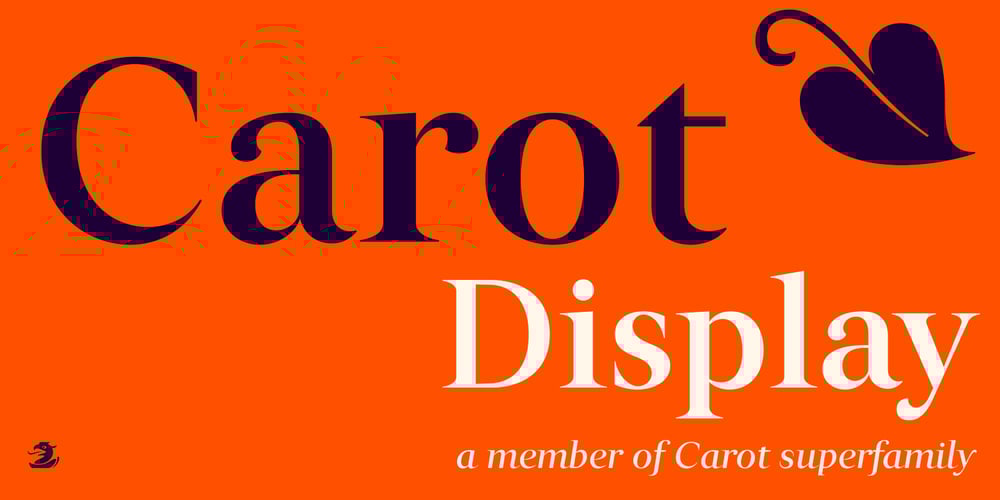
Carot Display Font Family was designed by František Štorm and published by Storm Type Foundry. Carot Display contains 16 styles and family package options. Carot Display is made for book covers and posters, but will also shine in advertising and visual identity. The whole Carot system is built up from what has long been around; in any case, it was the intention: to evoke the already experienced visual reminiscences of today’s spectacled people. We all have a tendency toward sentiment, which, with each new diopter, deepens to melancholy. Only good font can calm us down. I believe in the raw effect of “Carot” typefaces. The superfamily of 64 members offers a modern alternative for all types of design work.